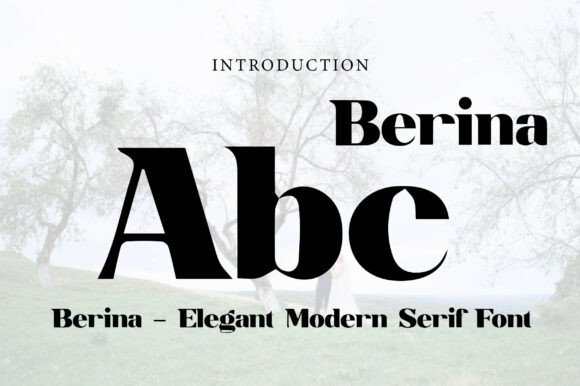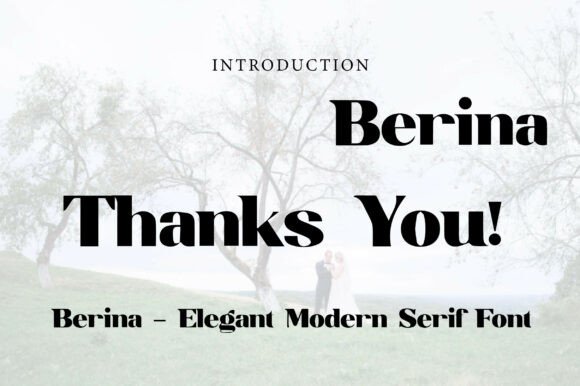
The Elegance of Berina: A Modern Serif Font for Creative Projects
I’ll never forget the struggle I faced while working on a luxury brand’s editorial design project. The client wanted a font that exuded elegance, sophistication, and a touch of modernity. After hours of searching, I stumbled upon Berina – a bold and elegant modern serif font that instantly caught my attention. In this article, I’ll share my experience with Berina, its features, and how to make the most of it in your creative projects.
What Makes Berina Special?
Berina is a graceful modern serif font designed to bring elegance, confidence, and sophistication to your designs. With its bold contrast, smooth curves, and refined letterforms, this typeface creates a luxurious and timeless impression.
• ✨ Refined and stylish look: Perfect for branding, editorial design, logos, packaging, and sophisticated creative projects.
• ✅ Versatile: Suitable for both minimalist and premium visual concepts.
• 💼 High-end branding: Ideal for creating magazine titles, brand identities, product packaging, wedding stationery, or social media content.
What I Love About Berina
• ✨ Elegant and sophisticated: Berina’s serif details and strong visual presence make it perfect for high-end projects.
• ✅ Easy to read: The font’s smooth curves and refined letterforms ensure excellent legibility.
• 📈 Scalable: Berina looks great in various sizes, from large headlines to smaller body text.
• ⚠️ Limited free alternatives: While Berina is worth investing in, there aren’t many free alternatives that match its quality.
• 🤔 Some manual kerning required: Depending on the project, you might need to adjust kerning for optimal results.
The Story Behind Berina
Berina was designed with the goal of creating a modern serif font that exudes elegance and sophistication. The designer aimed to blend classic serif beauty with a clean, modern touch, making it versatile for various creative projects.
Q: What makes Berina a good choice for luxury branding?
A: Berina’s elegant and sophisticated design, combined with its refined letterforms and smooth curves, make it an excellent choice for luxury branding.
Q: Can I use Berina for body text?
A: Yes, Berina is suitable for body text, but it’s recommended to use it in larger sizes (12pt or larger) for optimal readability.
Q: Is Berina a versatile font?
A: Yes, Berina is a versatile font that can be used for a wide range of creative projects, from high-end branding to editorial design and packaging.
Q: Can I use Berina for digital projects?
A: Absolutely! Berina is optimized for both print and digital use, making it a great choice for various applications, including social media content and website design.